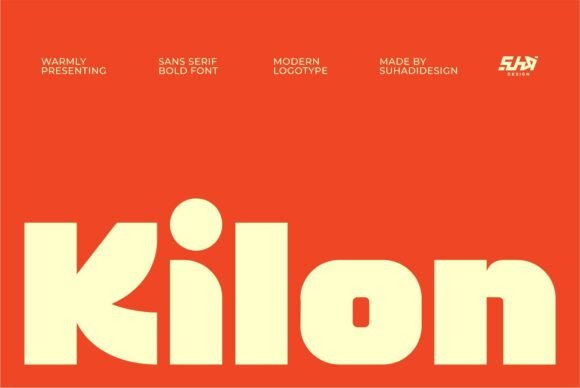
Kilon: A Bold Sans Serif for Modern Logotypes
I opened a blank brand board last Tuesday, staring at the cursor blinking on my screen. The project was simple on paper but heavy in expectation: a boutique identity for a high-end urban coffee roaster that needed to scream "premium" without whispering it. I had cycled through three different Sans Serif options, all of which felt too generic or slightly dated. Then, I dropped Kilon into the workspace. The moment the ultra-thick strokes hit the canvas, the entire mood of the project shifted. It wasn't just another set of Fonts; it was an immediate anchor for the visual identity.
This isn't just a theoretical review; this is what happens when you take a typeface built for geometric perfection and throw it into the messy reality of client work. Redefine your brand’s visual identity with Kilon, and you immediately understand why this striking Sans Serif Bold Font was crafted specifically for the modern logotype. Here is my honest breakdown after testing it across a full branding suite.
Why Kilon Dominates Modern Logo Design Concepts
The first thing I noticed when placing Kilon on the logo draft was its sheer presence. As a study in geometric perfection, the font doesn't try to be subtle. The ultra-think weight creates a solid, unshakeable foundation that commands attention instantly. In the world of logo design, where every pixel counts, Kilon offers a level of clarity that thinner Sans Serif fonts often struggle to achieve at small scales.
When I sketched out the initial concept for the coffee roaster, the boldness of the letters allowed me to play with negative space within the glyphs themselves. The geometric structure means the curves are consistent and the angles are sharp, creating a sense of precision that aligns perfectly with the idea of a master roaster. Unlike many decorative Fonts that lose their character when scaled down, Kilon retains its impact. It works exceptionally well as a standalone mark, proving itself as a powerful tool for designers who need a display font that can also function as a primary brand identifier.
Testing Kilon on Packaging and Product Labels
Moving from the digital screen to physical mockups is where most typefaces reveal their true limitations. I placed Kilon onto a matte black packaging label for the coffee bags, and the result was striking. The ultra-thick strokes provided excellent contrast against the dark background, ensuring the brand name popped without needing excessive ink coverage or complex gradients. This makes it a fantastic choice for packaging design where legibility and shelf impact are paramount.
In product labels, readability is non-negotiable. Because Kilon is a Sans Serif with such strong structural integrity, it remains legible even when printed on textured paper or curved surfaces like glass jars. I tested it on a cylindrical jar mockup, and the curvature didn't distort the geometry of the letters. For brands looking to create a cohesive look across their product line, using Kilon ensures that the typography feels premium and intentional. It transforms a standard label into a statement piece, reinforcing the quality of the product inside.
Kilon for Digital Headers and Social Media Graphics
Digital environments demand fonts that load quickly and read clearly on various screen sizes. When I applied Kilon to the website header for the mock project, it created an immediate visual hierarchy. The bold weight acts as a perfect headline font, guiding the user's eye straight to the value proposition. In web design, having a typeface that anchors the top of the page is crucial for reducing bounce rates and increasing engagement.
I also experimented with Kilon in social media graphics. On Instagram, where content competes for split-second attention, the font's bold nature made the text impossible to ignore. Whether used for a promotional post or a story highlight cover, the geometric lines held up beautifully. It pairs particularly well with high-contrast imagery, making it a versatile asset for digital marketing campaigns. If you are a creative studio or freelancer building assets for clients, adding Kilon to your library ensures you have a go-to option for impactful social headers.
Pairing Strategies for Kilon in Brand Identity Systems
While Kilon is powerful enough to stand alone, integrating it into a broader brand identity system requires thoughtful pairing. Since it is such a dominant Sans Serif Bold Font, it needs a supporting player that breathes. In my project, I paired it with a clean, light-weight serif font for body copy. The contrast between the heavy, geometric sans and the elegant, traditional serif created a sophisticated balance that felt both modern and timeless.
For those looking for a more contemporary feel, Kilon also works well alongside a minimal geometric sans with lighter weights. The key is to let Kilon do the heavy lifting in headlines and logos while allowing other Fonts to handle the narrative. Avoid pairing it with other heavy display fonts or overly decorative script fonts, as this can create visual clutter. The goal is to maintain the clarity and professionalism that Kilon brings to the table. By treating it as the anchor of your typography system, you ensure consistency across all touchpoints, from business cards to annual reports.